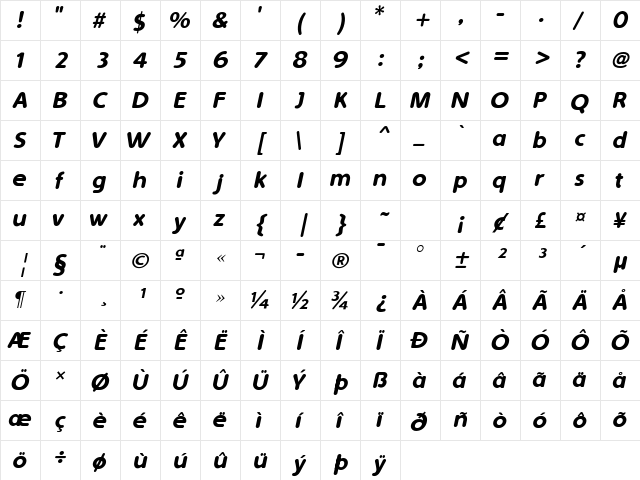
Simply Rounded Italic
| Designer | 頇aldino Otten |
Design Context for Simply Rounded Typeface
Simply Rounded uses gentle rounded endings to create a warm, inviting typographic personality — less corporate than geometric sans, more refined than playful display fonts. The slanted form adds forward momentum and visual energy.
Well-suited to UI design, mobile interfaces, and any brand that wants approachability without sacrificing clarity.
Font Pairing: Pairs well with a rounded or humanist sans for body copy, maintaining the friendly tone without relying on Simply Rounded to carry extended reading.
Pro Tip: Use Simply Rounded for UI elements, app interfaces, and anywhere a friendly, approachable tone needs to be maintained without sacrificing clarity.